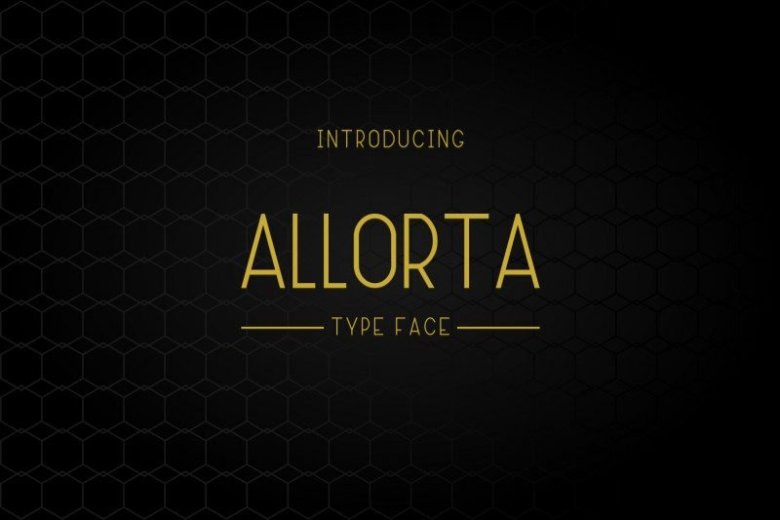
Allorta Sans Serif Font
Hi Guys! Finally we are ready to introduce our very first Sans Serif Font. We name it “Allorta”. It’s made with love by our “fashion mode enthusiast” typeface designer: Lisna Sulis. This font will be AWESOME for any fashion, clothing, brands, as well as any stylish professional like: interior designer, hairstylist, architect, event organizer, wedding, publishing, textile fans etc.
Allorta will really blend and suit best for stationery, branding, logo, business card, invitation, booklet, flyer, catalog, menu, tags, handbag, hand-tag, box, manual, school, university, reunion, dentist, clinic, department store, retail etc